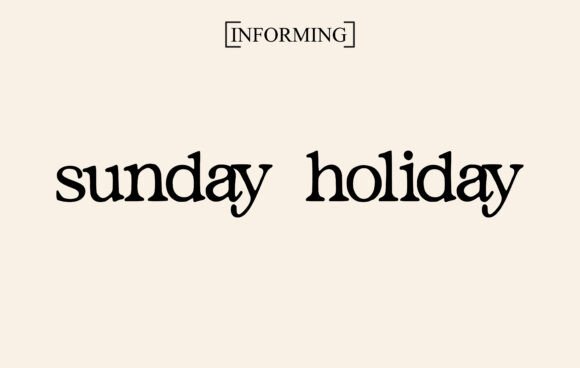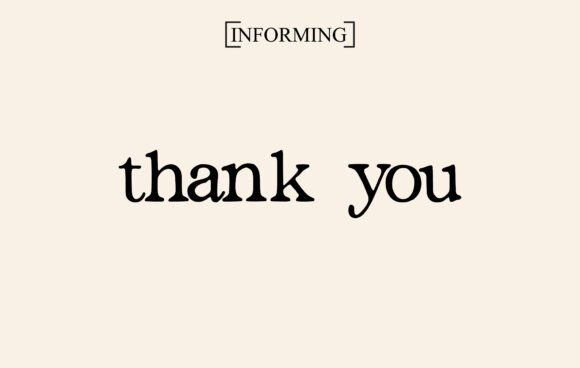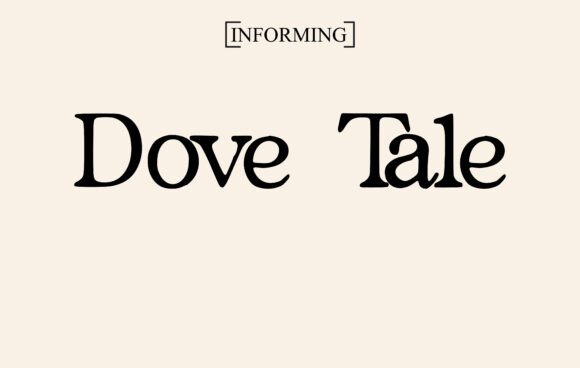
Dove Tale Font: Elevate Your Designs with Elegance and Versatility
In the world of typography, fonts play a crucial role in bringing creative ideas to life. Among the numerous fonts available, Dove Tale Font stands out as a true favorite among designers and crafters. This beautifully designed font is not only legible but also incredibly versatile, making it perfect for a wide range of applications. In this article, we’ll explore the features and benefits of Dove Tale Font and how it can elevate your designs to new heights.
A Font Designed for Creativity
Dove Tale Font is crafted to be a go-to choice for designers seeking a font that can effortlessly convey elegance and sophistication. Its unique design ensures that it looks great as both title and body text, making it an excellent addition to any design project. Whether you’re working on magazine headlines, t-shirts, social media graphics, branding materials, wedding invitations, or cards, Dove Tale Font is the perfect companion to help you bring your creative ideas to fruition.
Key Features of Dove Tale Font
- Legibility: One of the standout features of Dove Tale Font is its exceptional legibility. Its clear and concise design ensures that your text is easily readable, making it perfect for both digital and print applications.
- Versatility: Dove Tale Font is incredibly versatile and can be used for a wide range of design projects. Its elegant design makes it suitable for formal and informal applications, from wedding invitations to social media graphics.
- Elegance: The font’s unique design exudes elegance and sophistication, making it perfect for designers seeking to add a touch of refinement to their work.
Applications of Dove Tale Font
Dove Tale Font’s versatility makes it an excellent choice for various design projects. Here are some of the many applications where this font shines:
- Magazine Headlines: Add a touch of elegance to your magazine headlines with Dove Tale Font. Its clear and concise design ensures that your titles are easily readable and visually appealing.
- T-Shirts: Create stunning t-shirt designs with Dove Tale Font. Its unique design ensures that your text stands out and looks great on various fabric types.
- Social Media: Elevate your social media graphics with Dove Tale Font. Its elegant design makes it perfect for creating engaging and shareable content.
- Branding: Establish a strong brand identity with Dove Tale Font. Its sophisticated design ensures that your branding materials look professional and refined.
- Wedding Invitations: Add a touch of romance and elegance to your wedding invitations with Dove Tale Font. Its beautiful design ensures that your invitations are memorable and special.
- Cards: Create stunning card designs with Dove Tale Font. Its unique design ensures that your cards stand out and convey your message effectively.
Why Choose Dove Tale Font?
With so many fonts available, why choose Dove Tale Font? Here are a few compelling reasons:
- Unique Design: Dove Tale Font boasts a unique design that sets it apart from other fonts. Its elegant and sophisticated design ensures that your work stands out.
- Exceptional Legibility: The font’s exceptional legibility ensures that your text is easily readable, making it perfect for both digital and print applications.
- Versatility: Dove Tale Font is incredibly versatile and can be used for a wide range of design projects.
Dove Tale Font is an exceptional font that has the potential to elevate your designs to new heights. Its unique design, exceptional legibility, and versatility make it perfect for a wide range of applications. Whether you’re a designer, crafter, or DIY enthusiast, Dove Tale Font is an excellent addition to your font collection. With its elegant and sophisticated design, Dove Tale Font is sure to become a true favorite among designers and crafters.